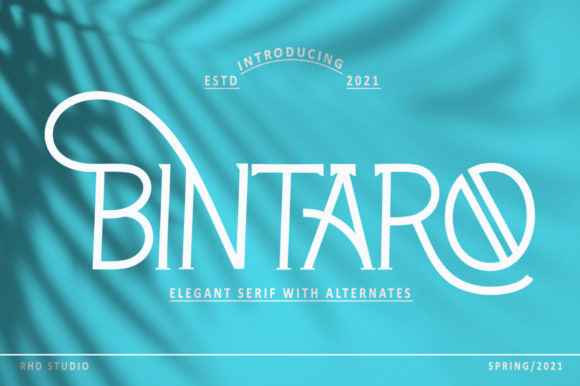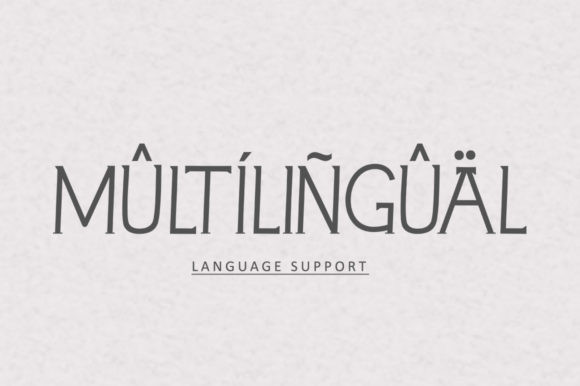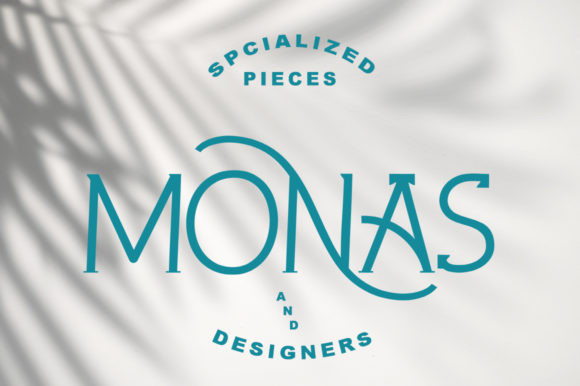
Bintaro Font
Bintaro is a clean and elegant serif font with a bold, rounded shape. It looks stunning on wedding invitations, thank you cards, quotes, greeting cards, logos, business cards and every other design which needs a unique touch.